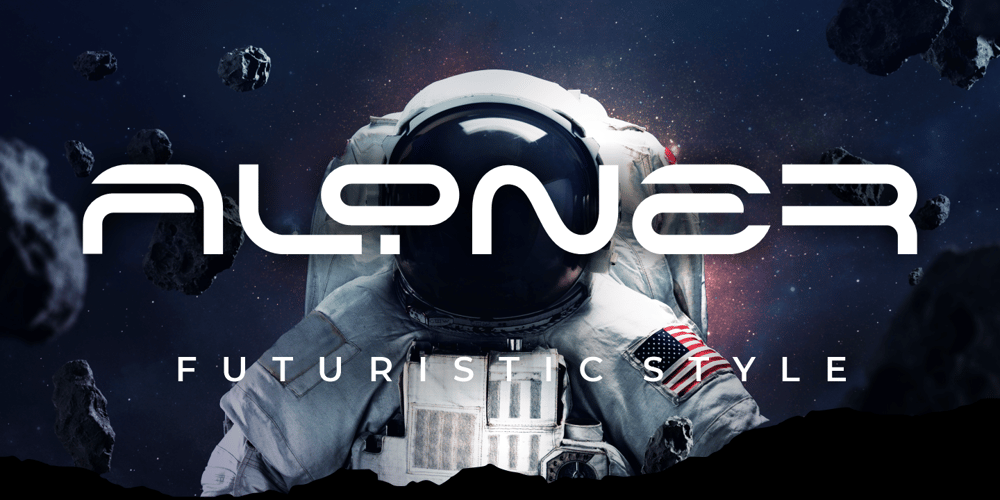
Aloner
Aloner font
Aloner Font Family was designed by Burhan Afif and published by HansCo. Aloner contains 1 styles and family package options. ALONER is a modern monoline font with unique style that will make your design looks modern and futuristic. You can use this font for any purpose, especially to make logotype like a technology logo brand. This typeface is comes in uppercase, lowercase, punctuation, symbols, numerals, etc also support multilingual.Enjoy!